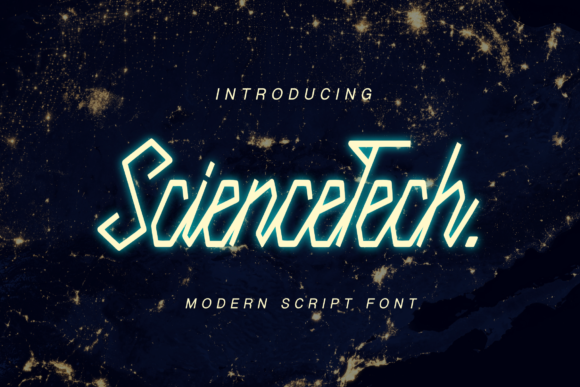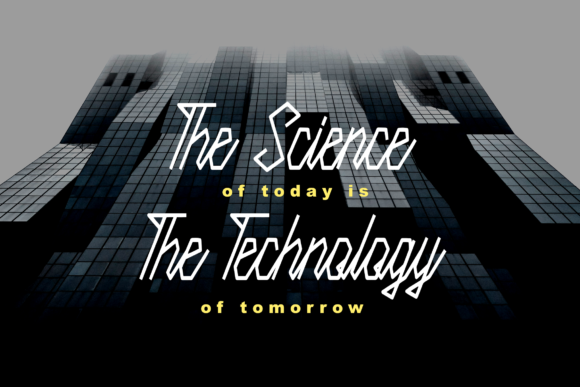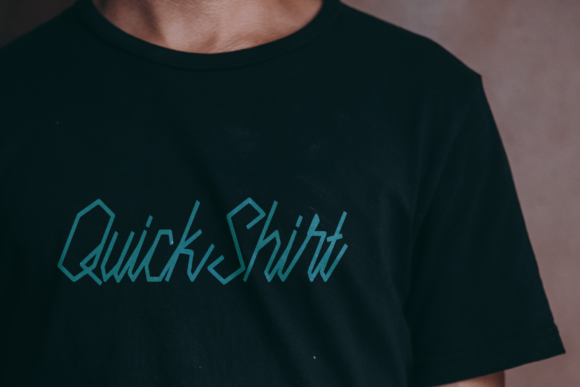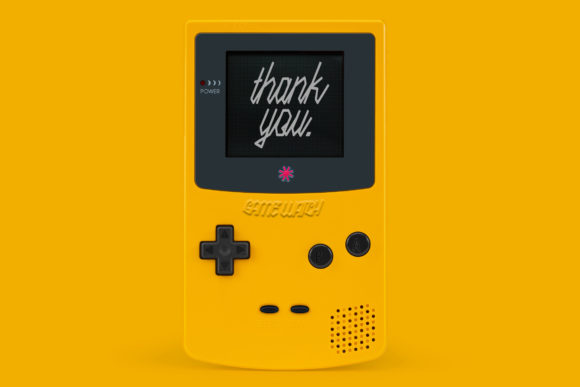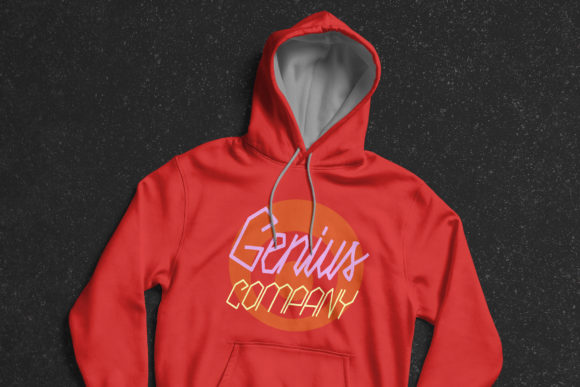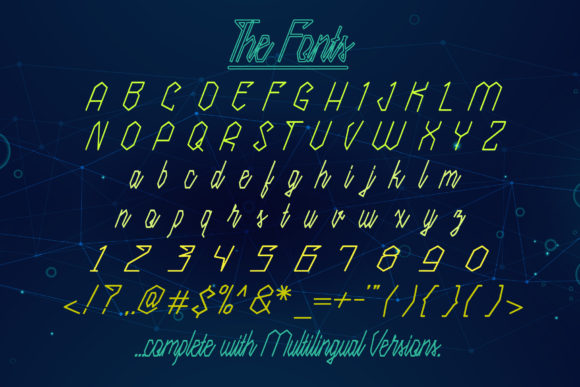
Science Tech Font
About Science Tech Font
Science Tech is a monoline script font with a futuristic feel. Use it to take any tech- or computer-themed design idea to the next level.